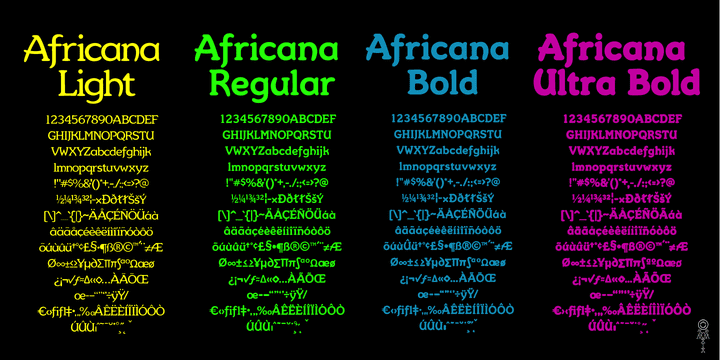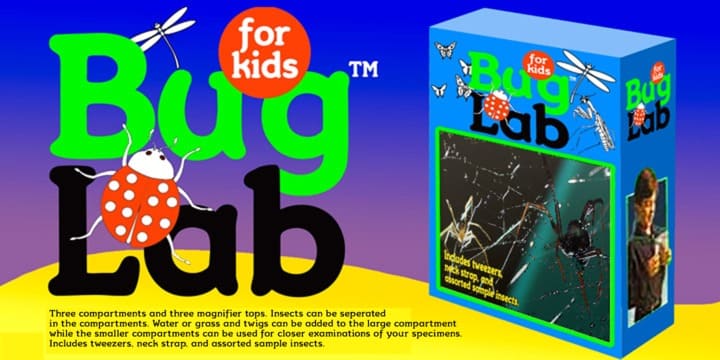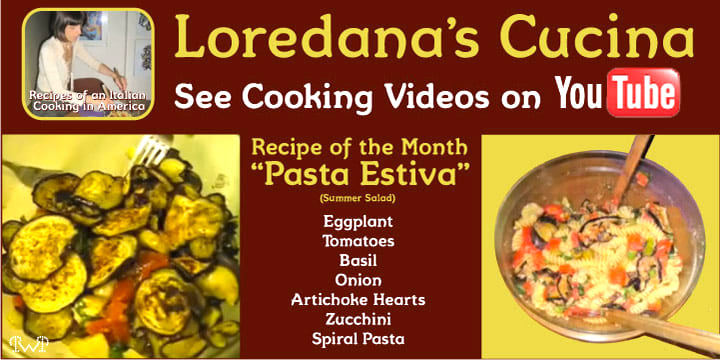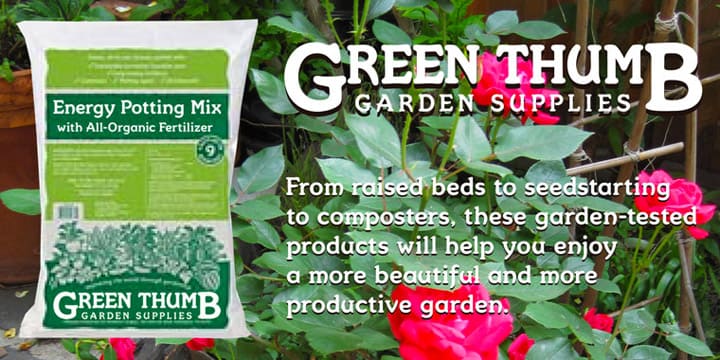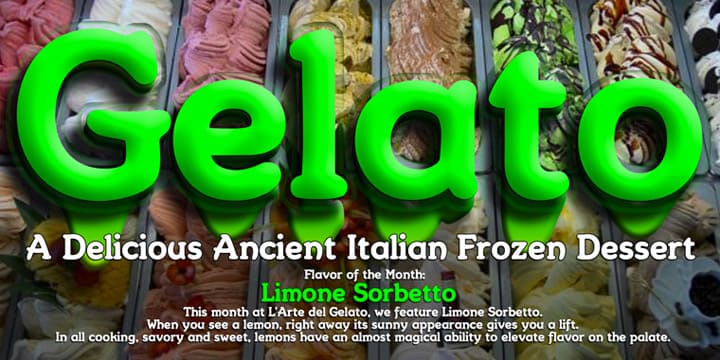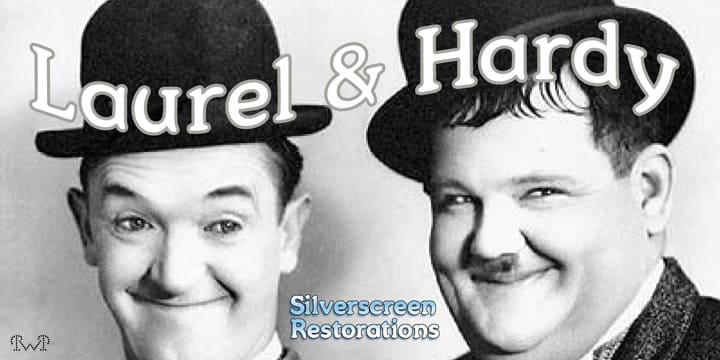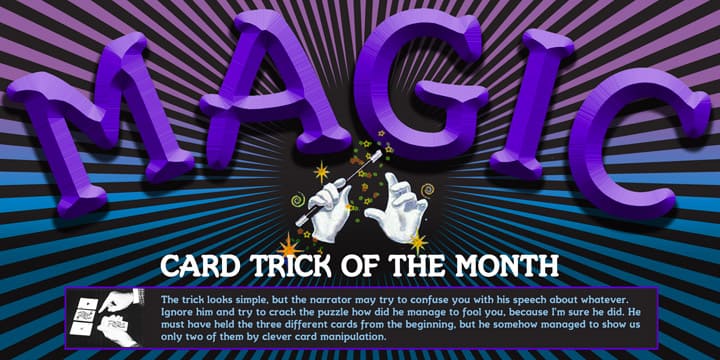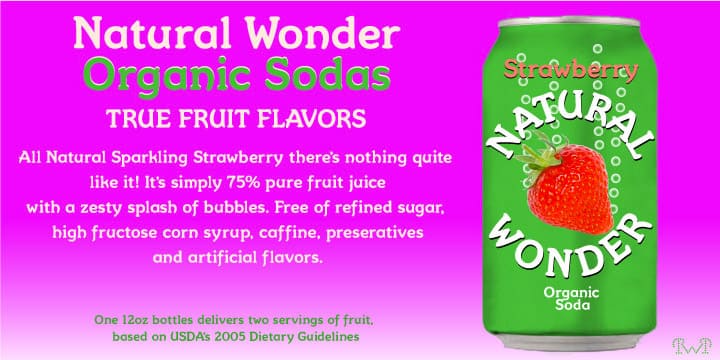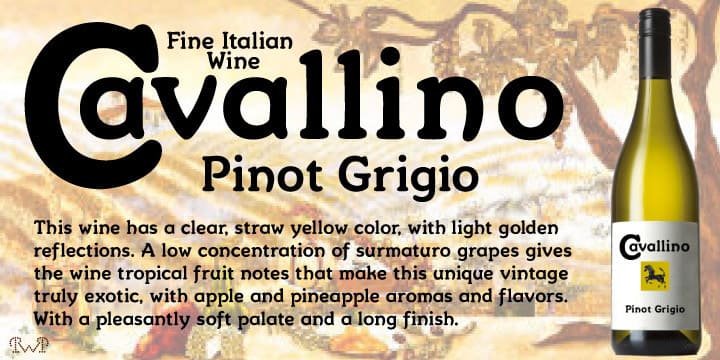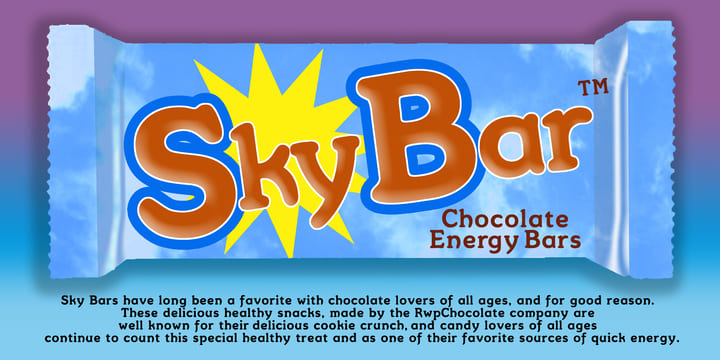
Africana Family (4 fonts)
From Robert W. Petrick
Easy to read, this font is great for children's books, packaging or signage. A few of the more unique letters such as the A, K, R, U, X and Y would be very interesting drop caps.